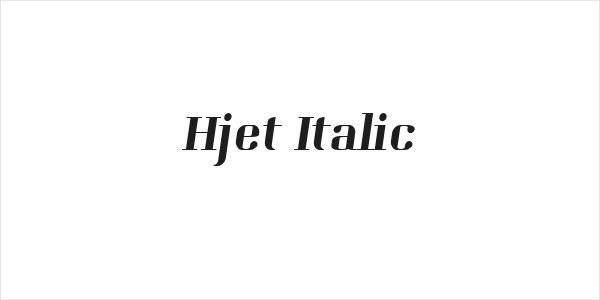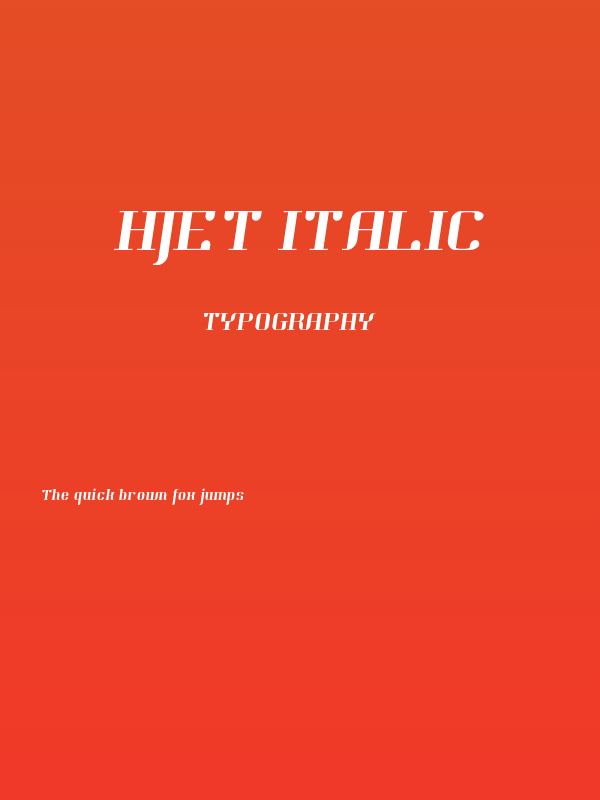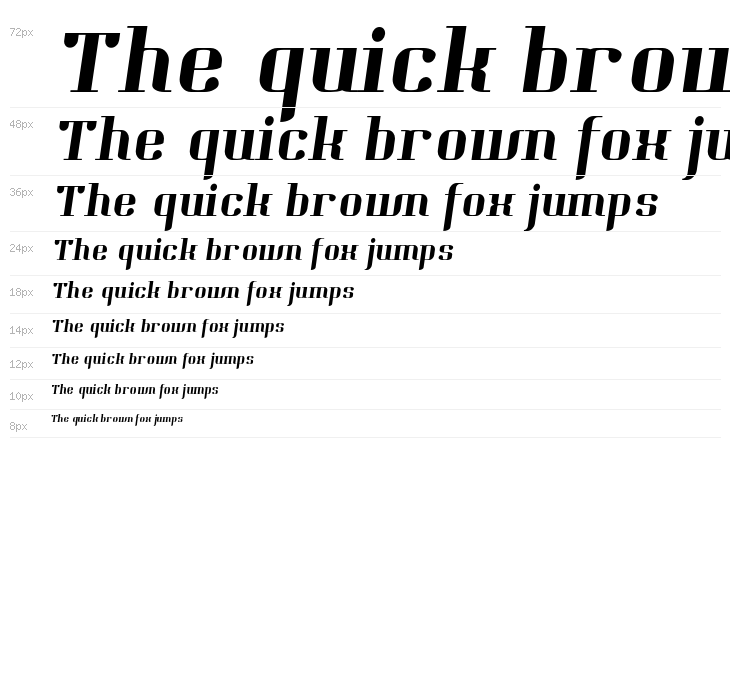
Hjet Italic Font
Hjet Italic Description
This font exhibits a dynamic and modern style with a distinct italic slant, giving it a sense of motion and elegance. The characters are bold and feature high contrast between thick and thin strokes, which adds to its striking appearance. The uppercase letters are tall and commanding, while the lowercase letters maintain a consistent flow, enhancing readability. Numbers are clear and well-defined, making them suitable for various applications. Special characters are uniquely designed, maintaining the overall aesthetic of the font. The spacing between characters is normal, ensuring legibility without compromising style.
Use CaseHeadlines, Logos, Branding
Proposed ProjectsIdeal for branding, advertising, headlines, and editorial design where a modern and impactful look is desired.